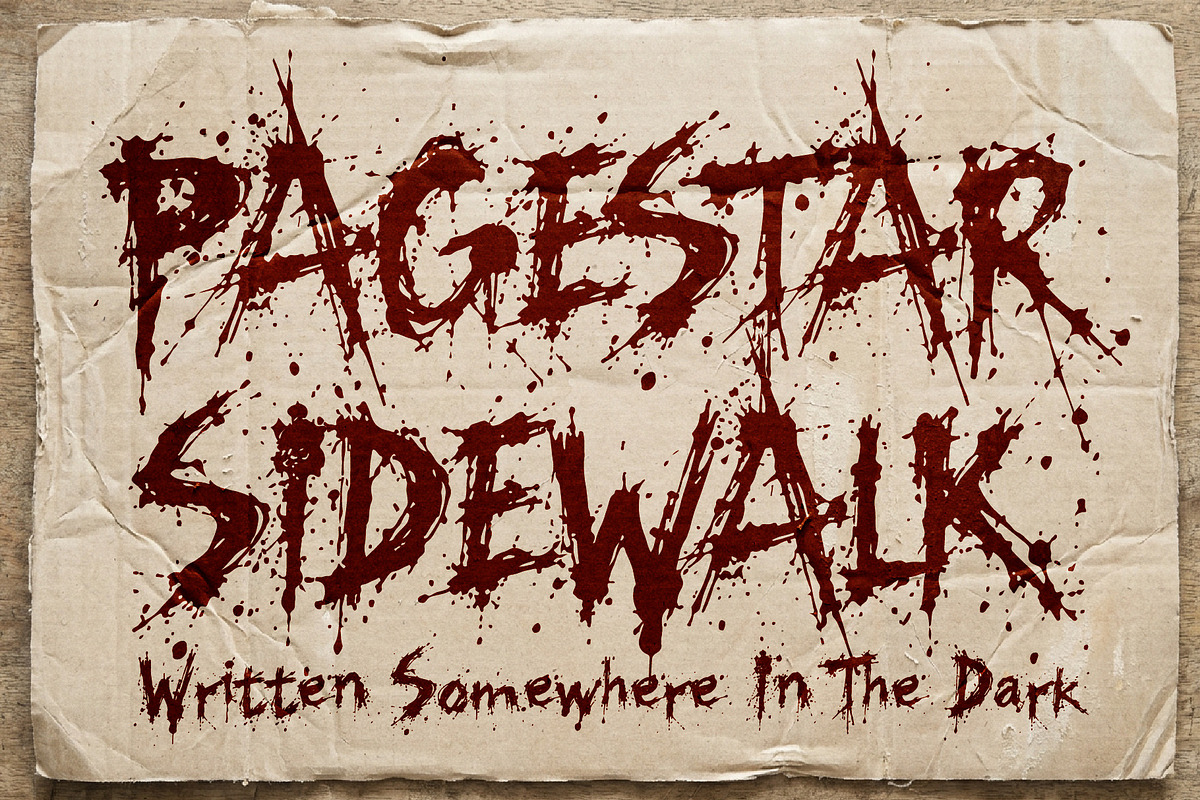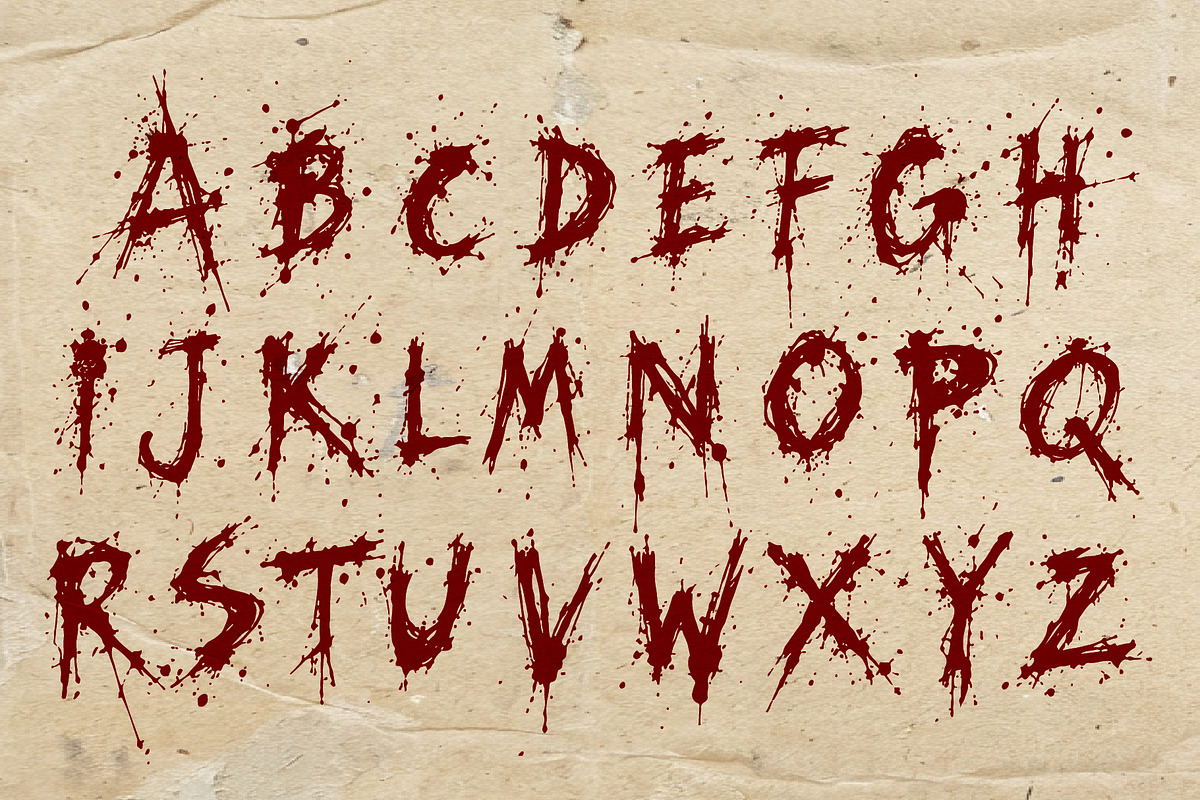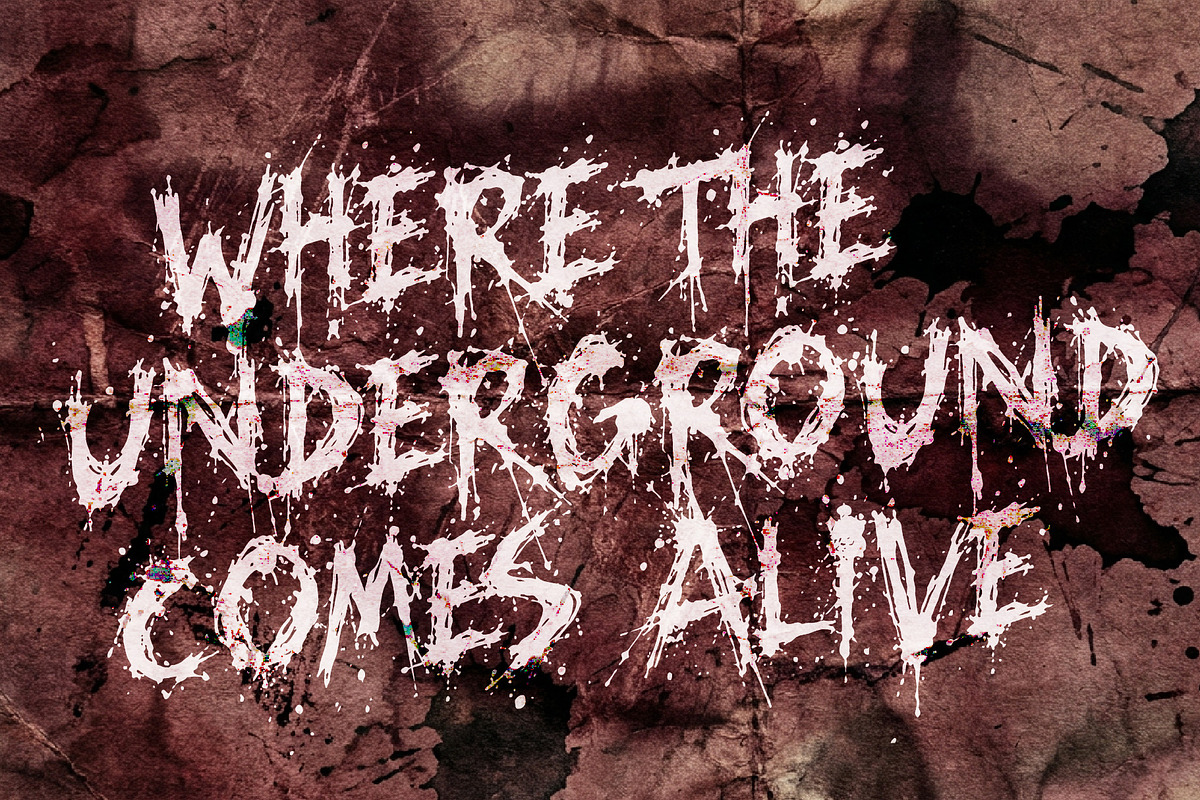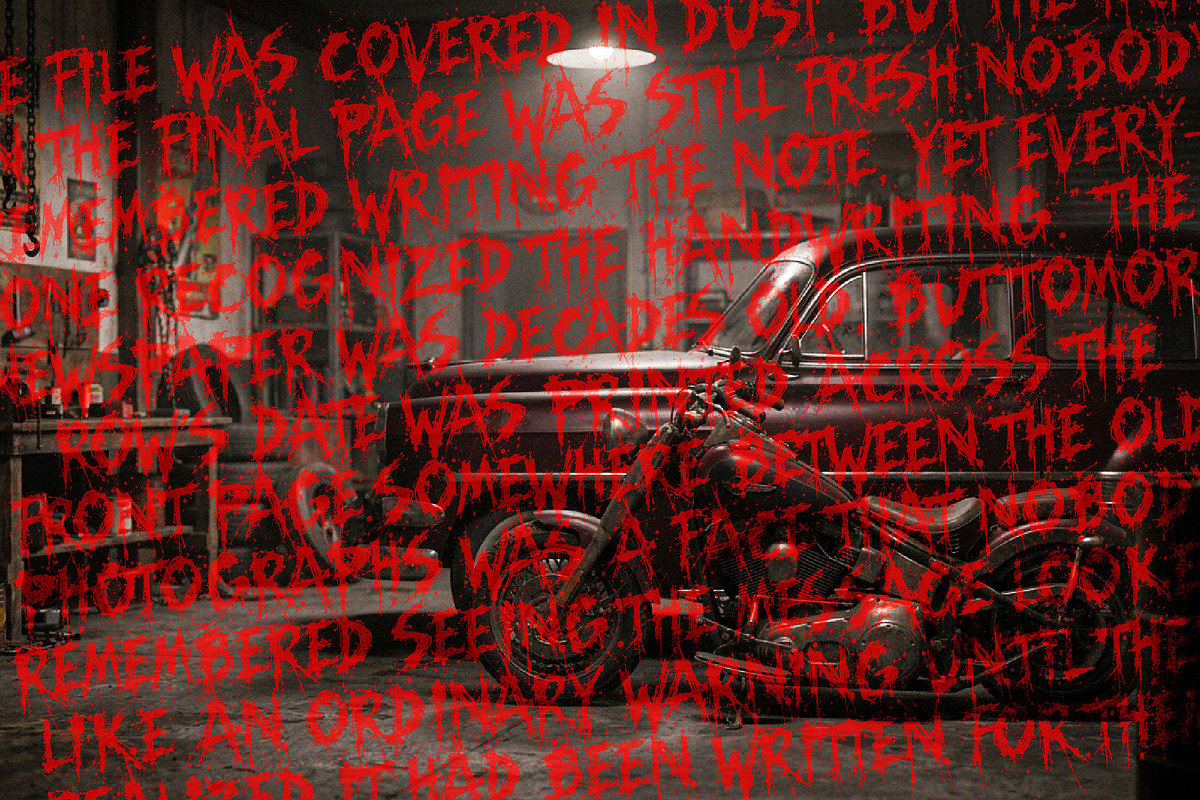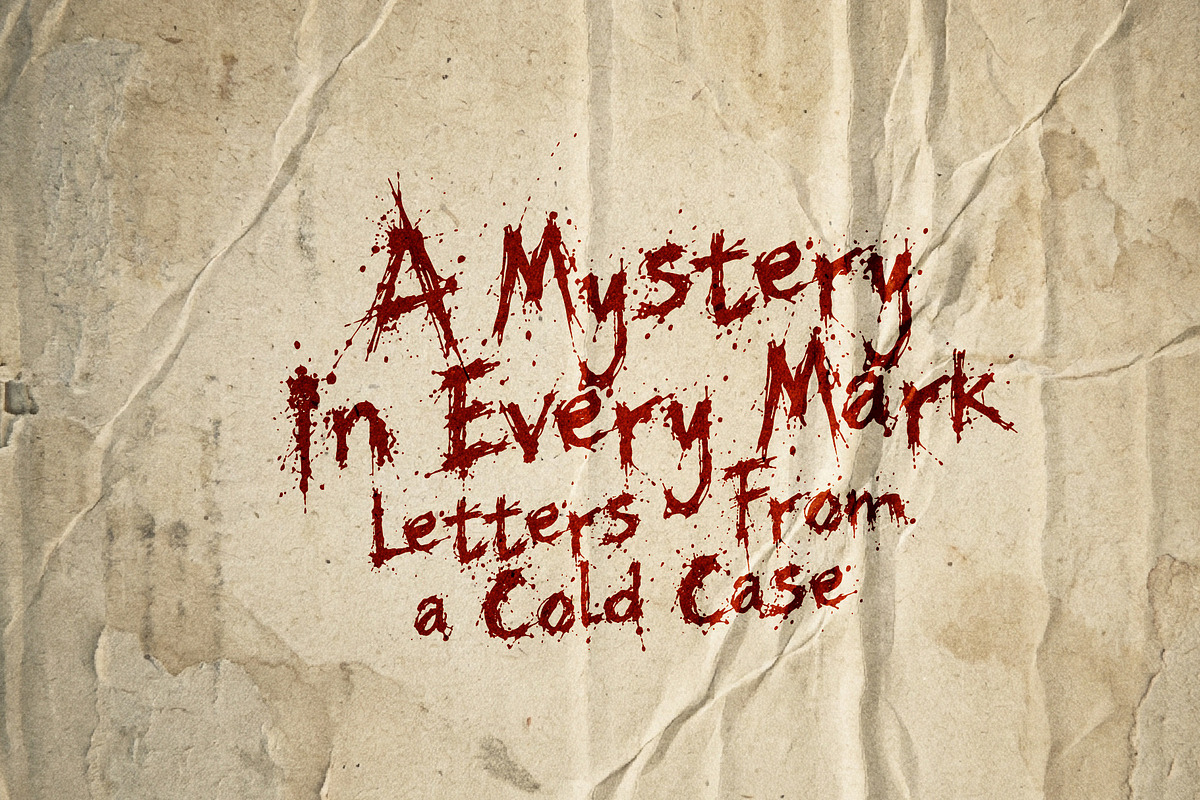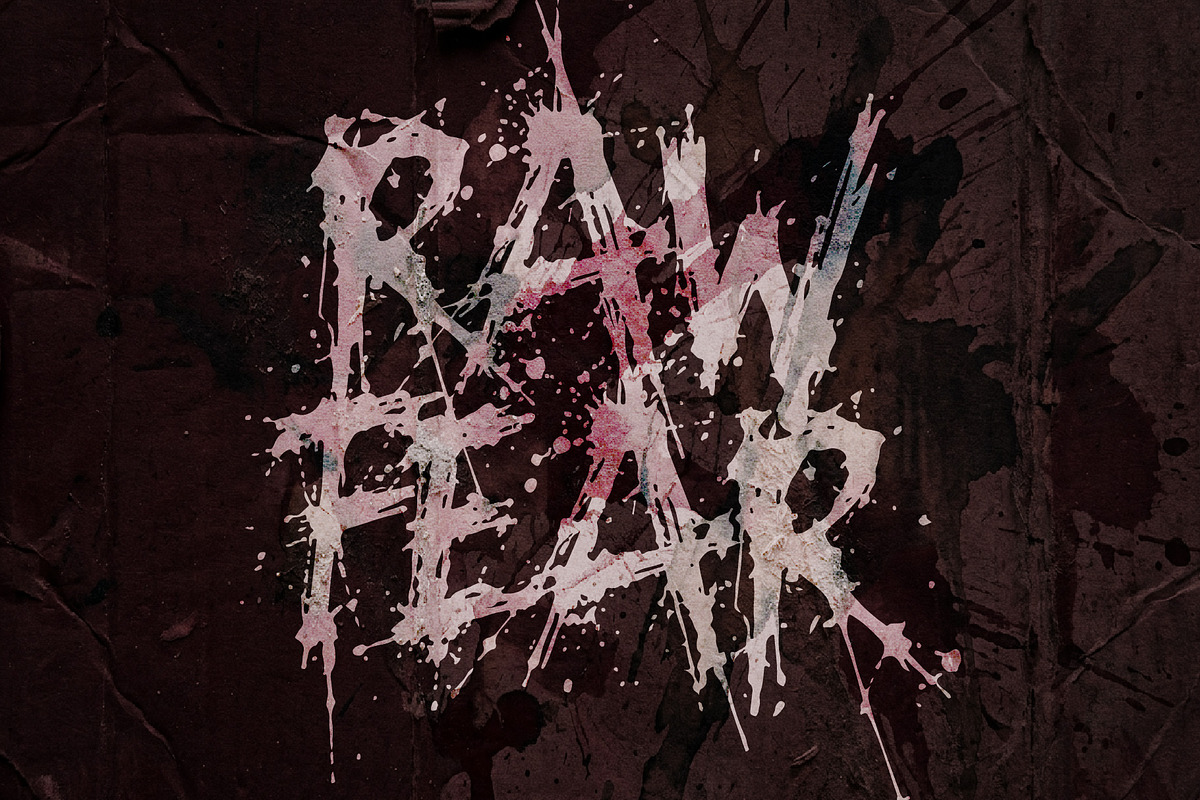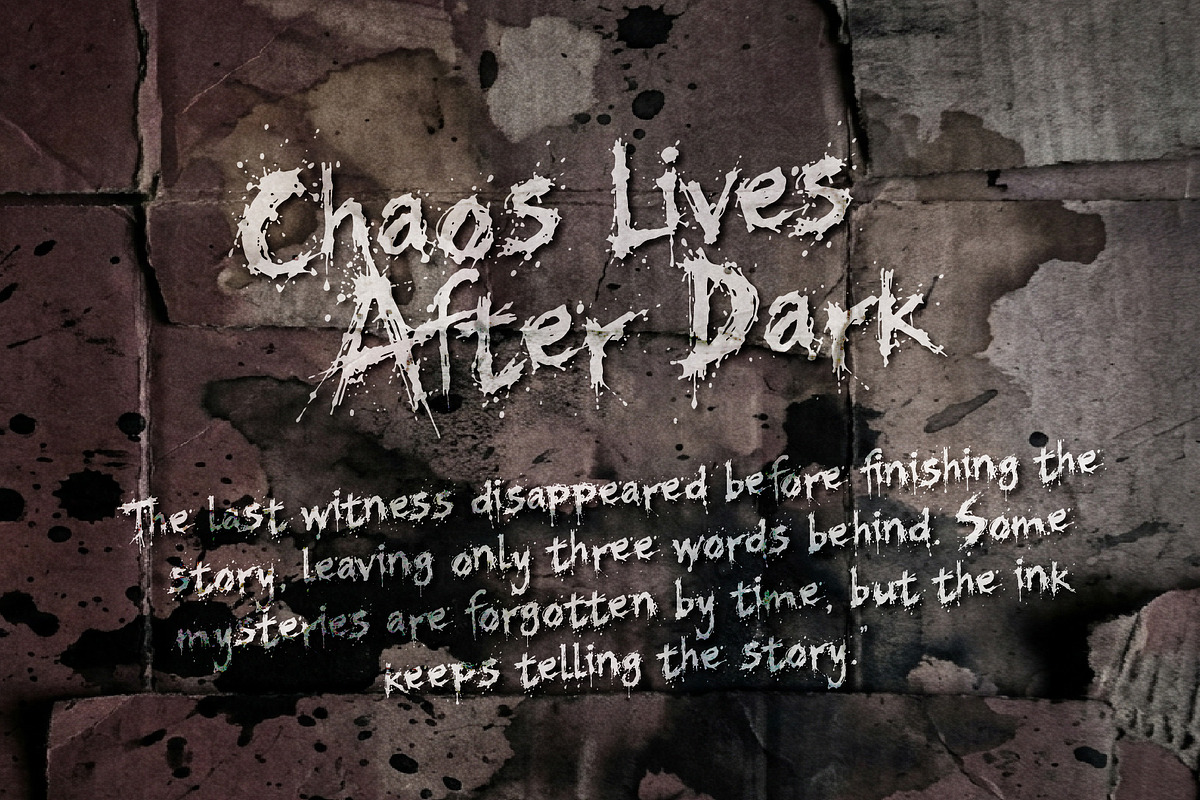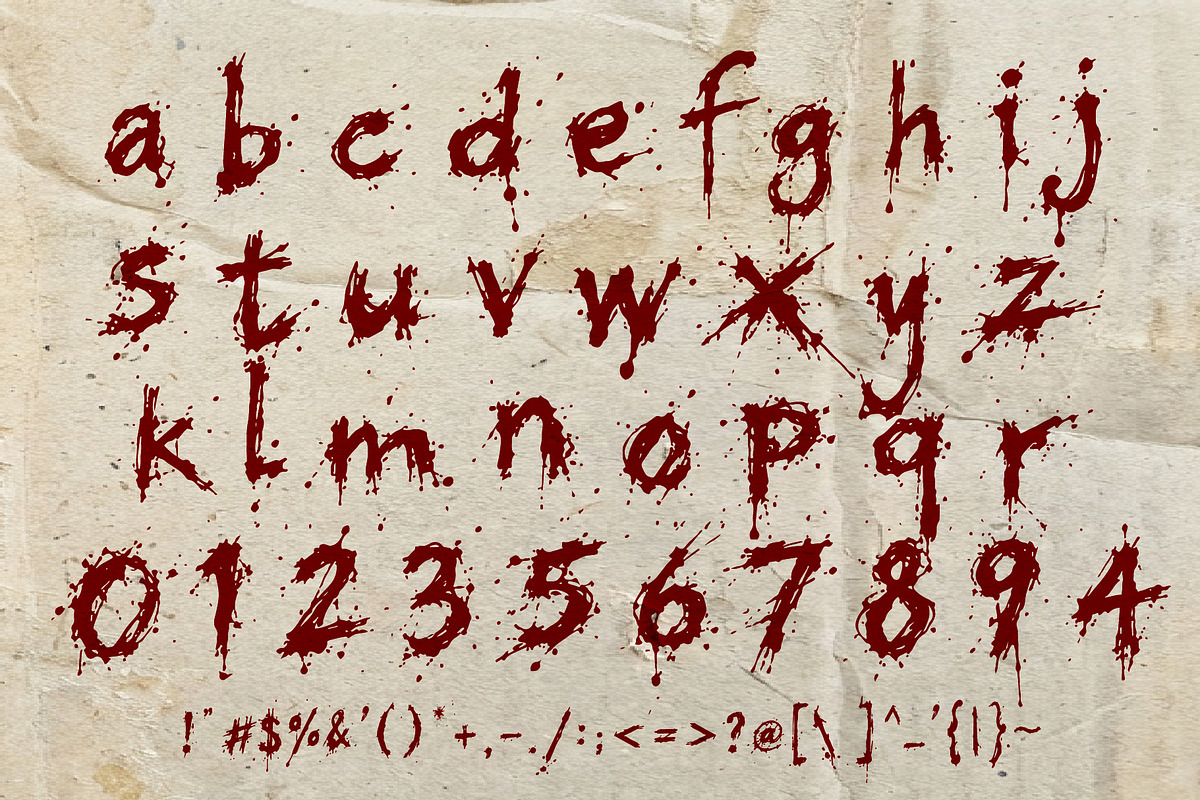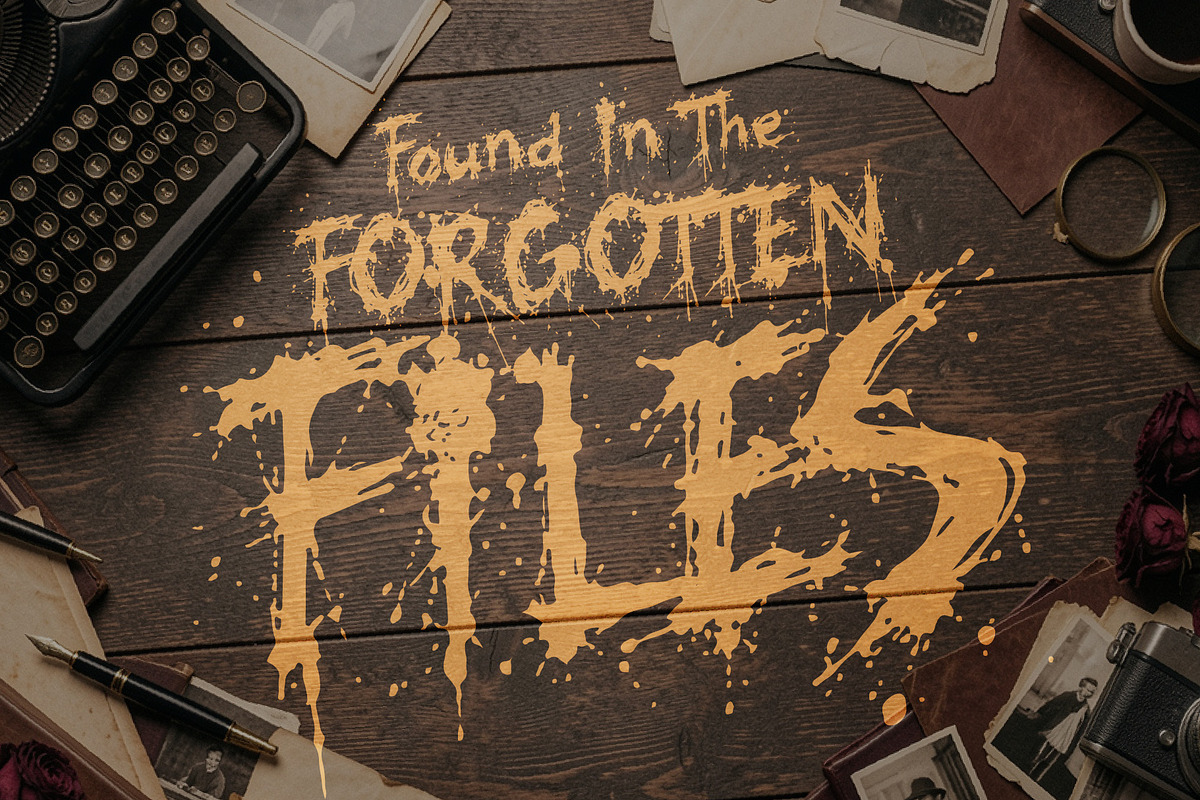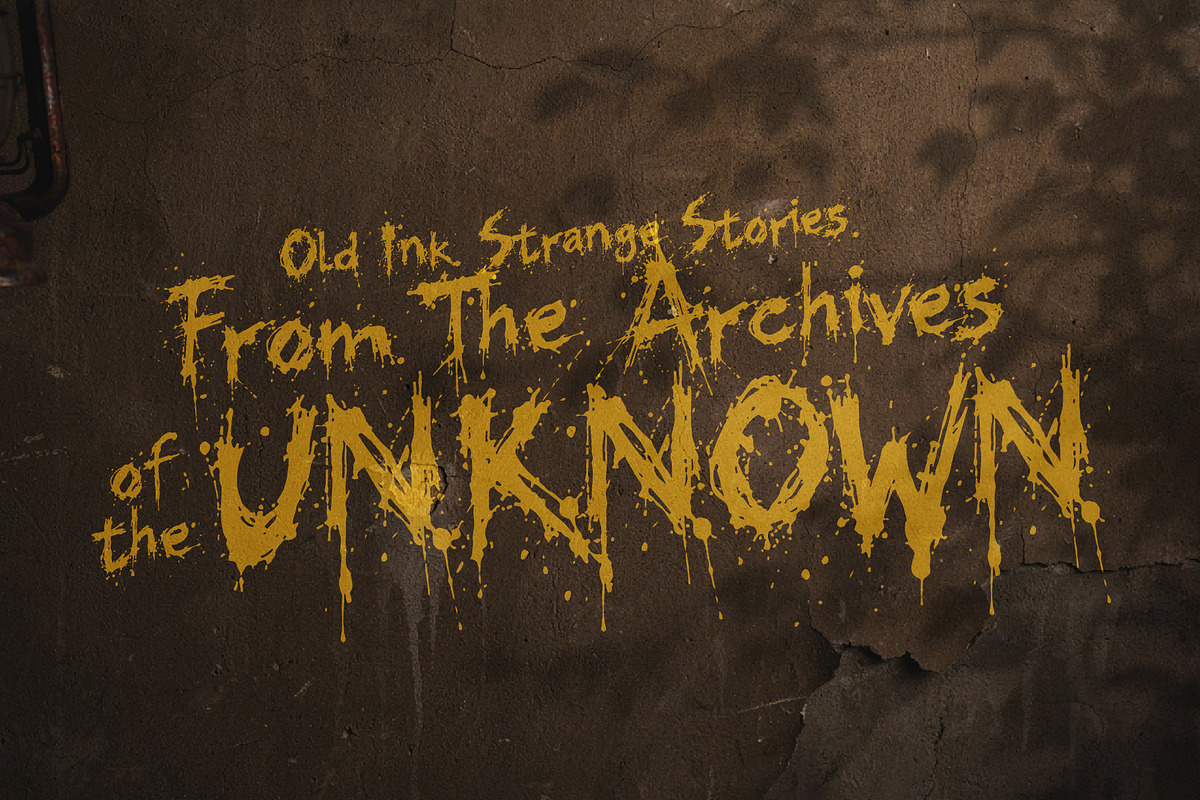
Pagestar Sidewalk mystery Grungetype
Pagestar Sidewalk is an grunge brush font soaked in mystery, suspense, and dark atmosphere. Inspired by worn newspapers, forgotten case files, vintage crime stories, and mysterious documents, it combines imperfect typewriter forms with rough ink textures, scattered splatters, and distressed details.
Its aged appearance gives every word the feeling of something discovered in an old archive a warning note, a classified report, a strange newspaper headline, or a clue from a case that was never solved. The uneven ink marks and weathered texture add an authentic handmade imperfection without losing the recognizable character of classic typewriter lettering.
Perfect for horror and thriller posters, mystery book covers, vintage crime artwork, Halloween graphics, detective stories, dark editorial designs, album artwork, movie titles, retro packaging, and atmospheric branding. Pagestar Sidewalk brings an unsettling sense of history to designs that need to feel mysterious, forgotten, and slightly disturbing.